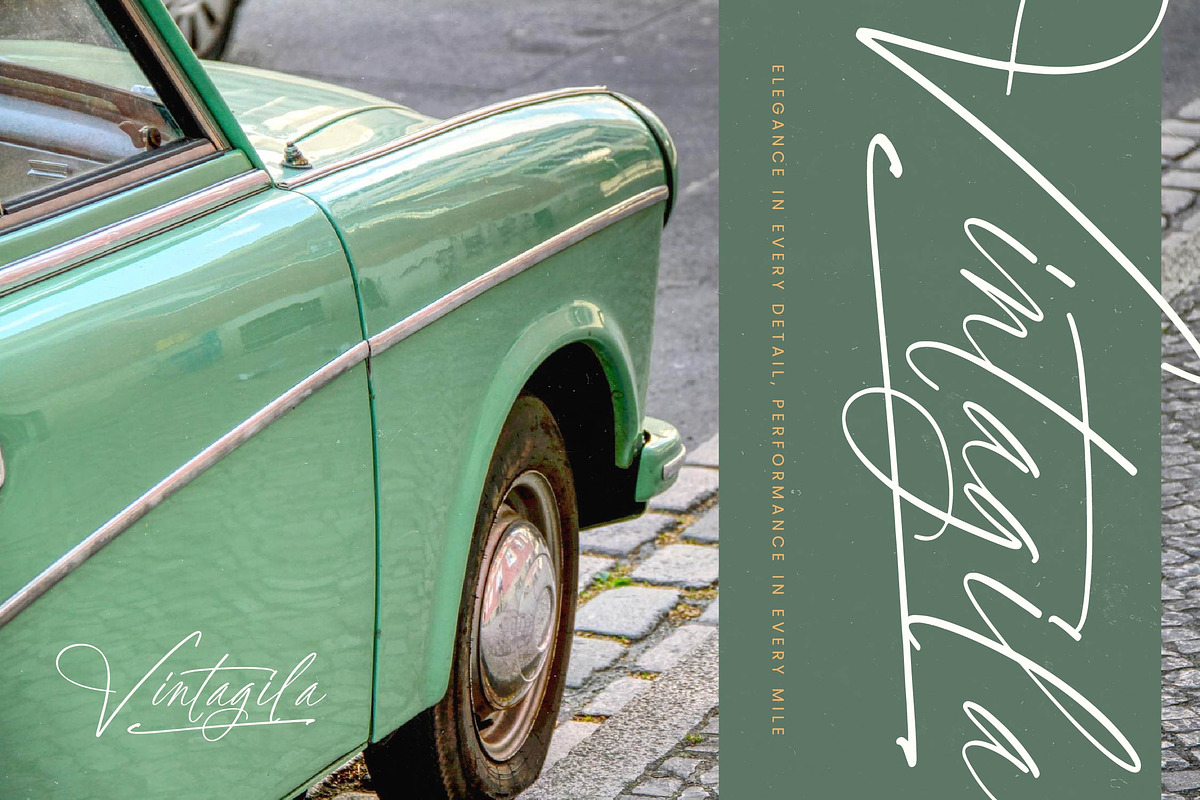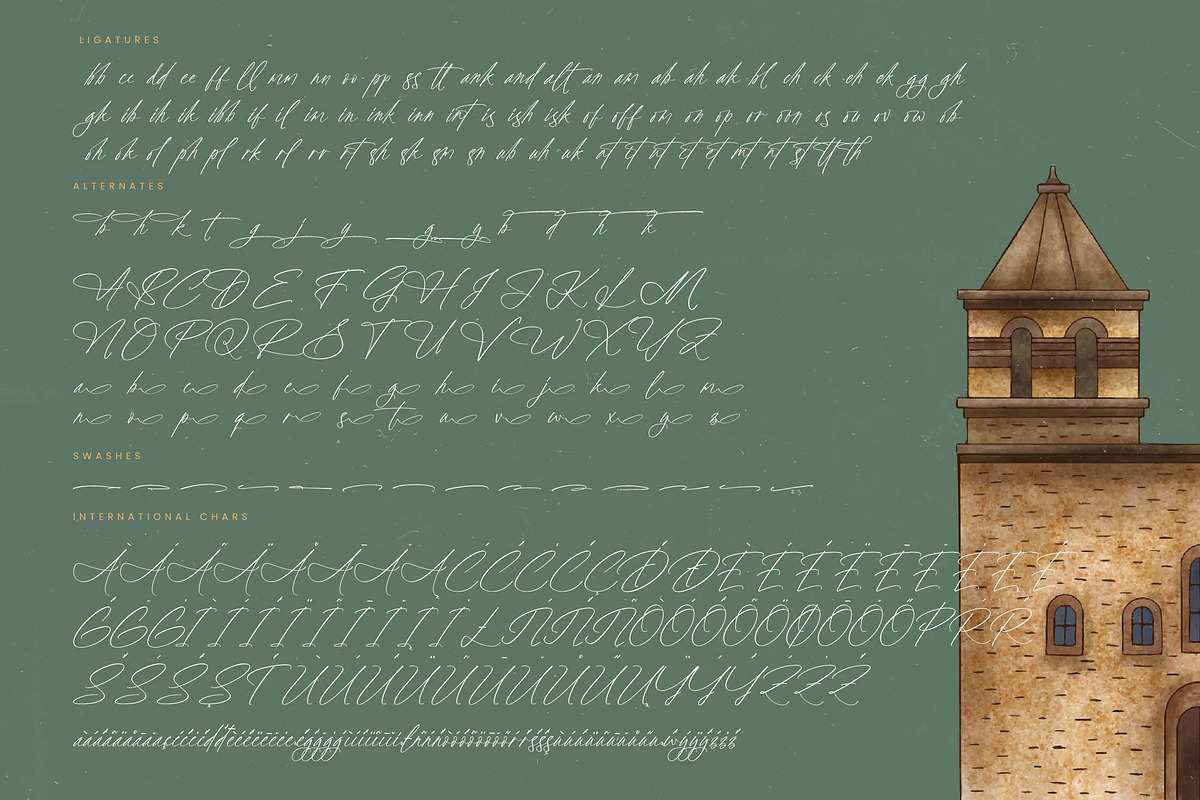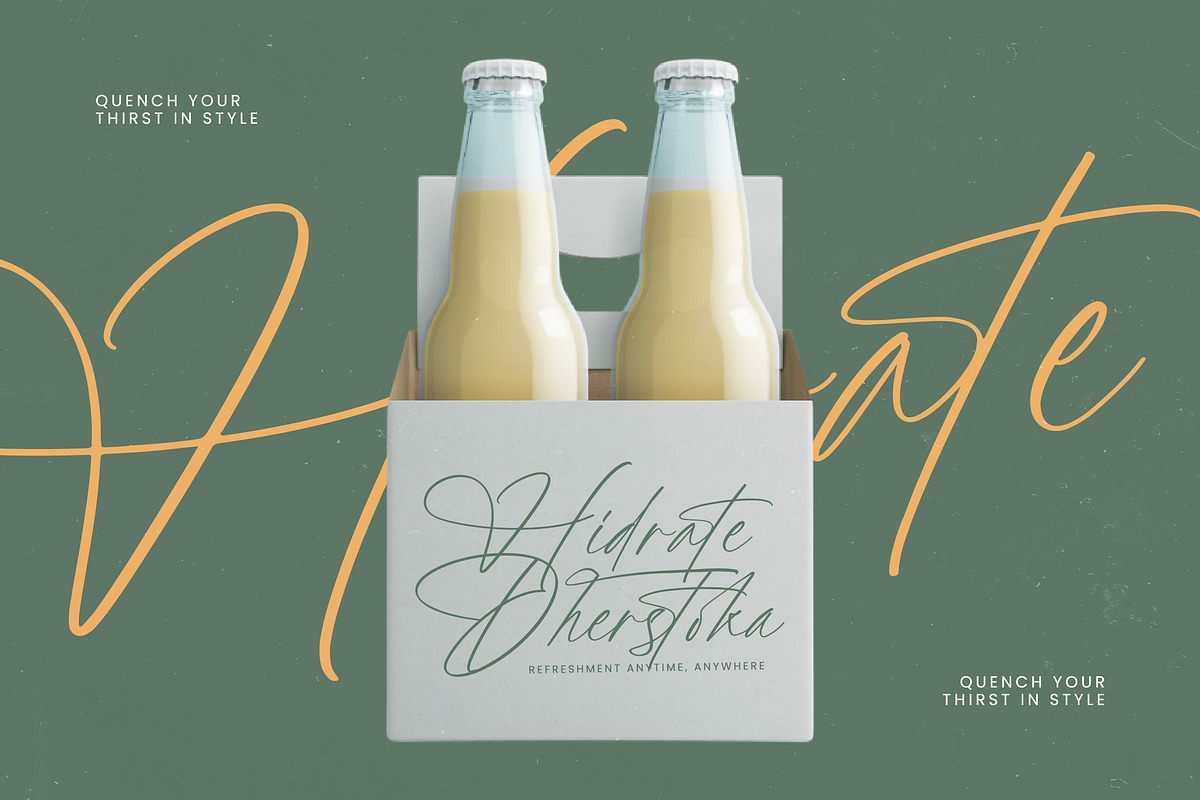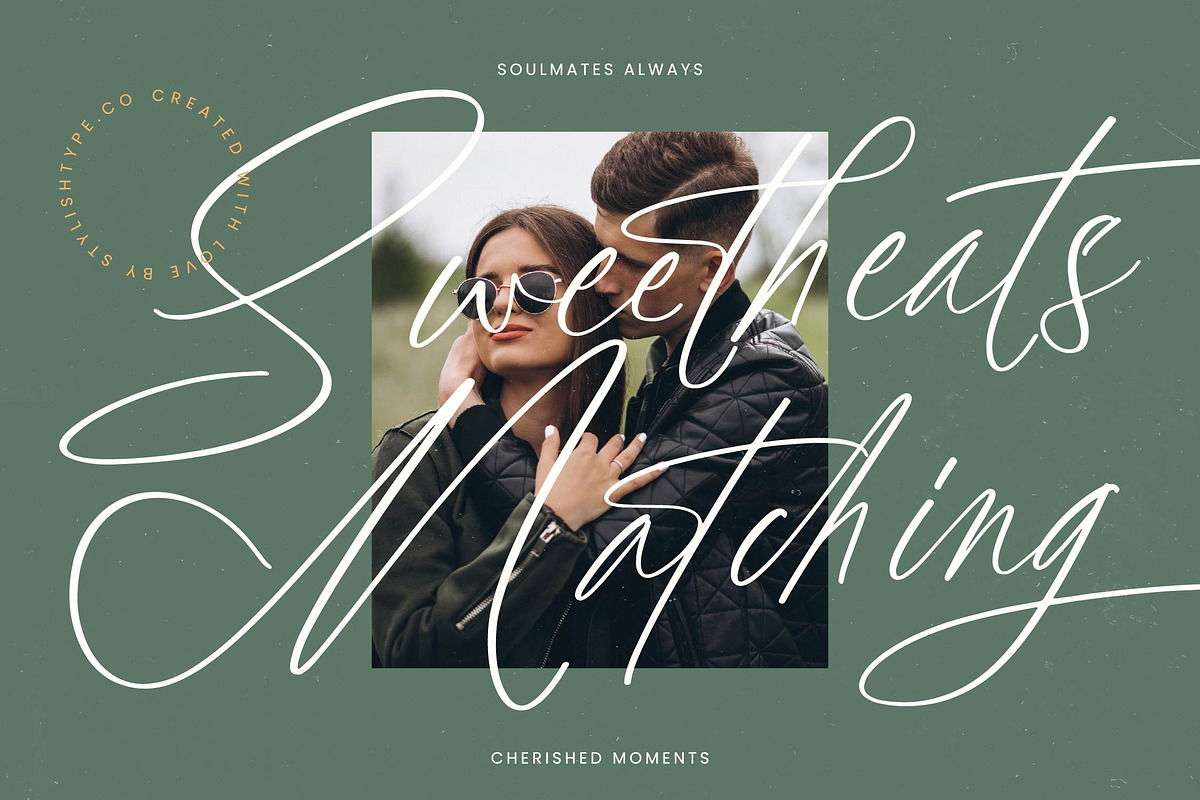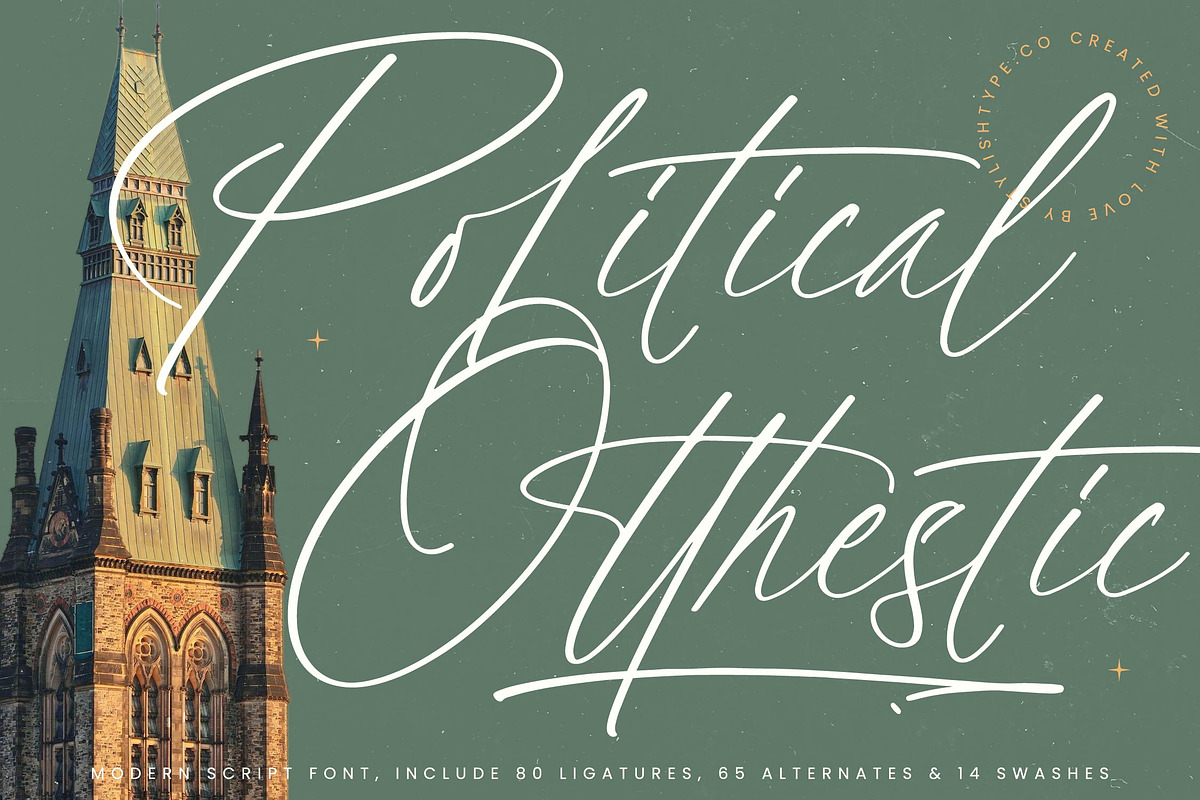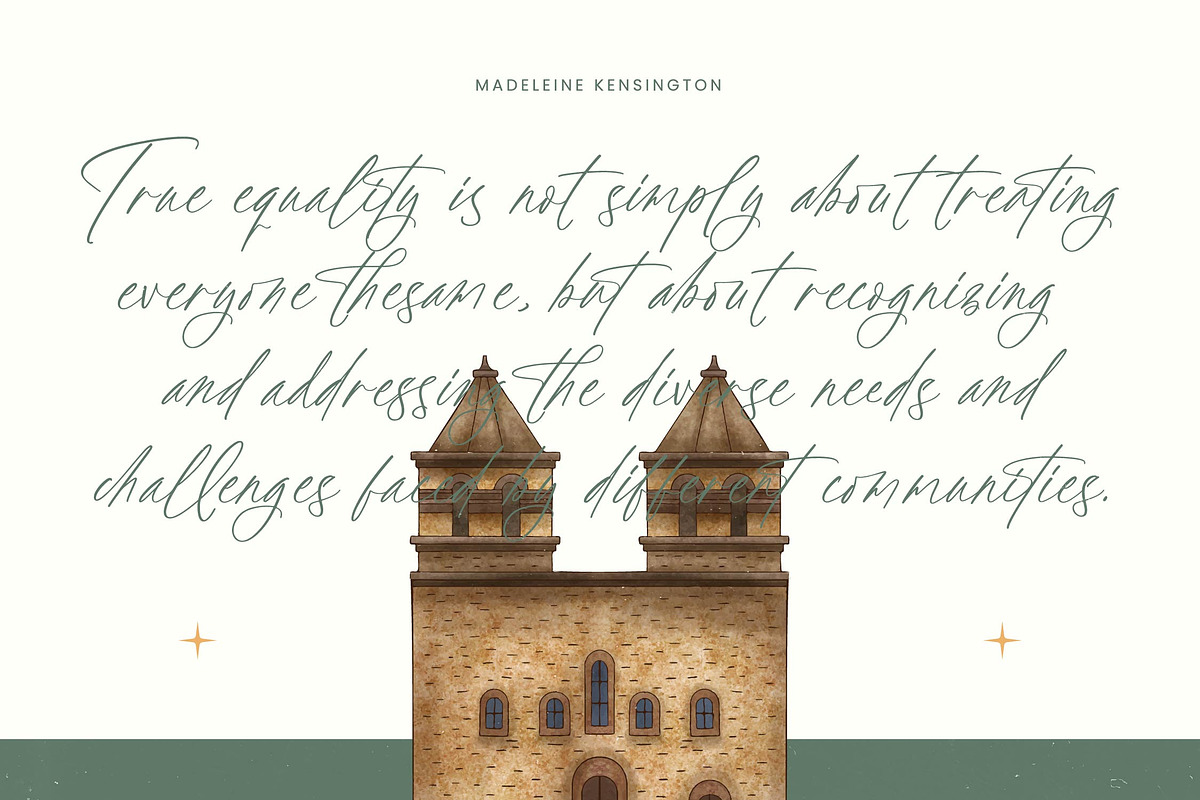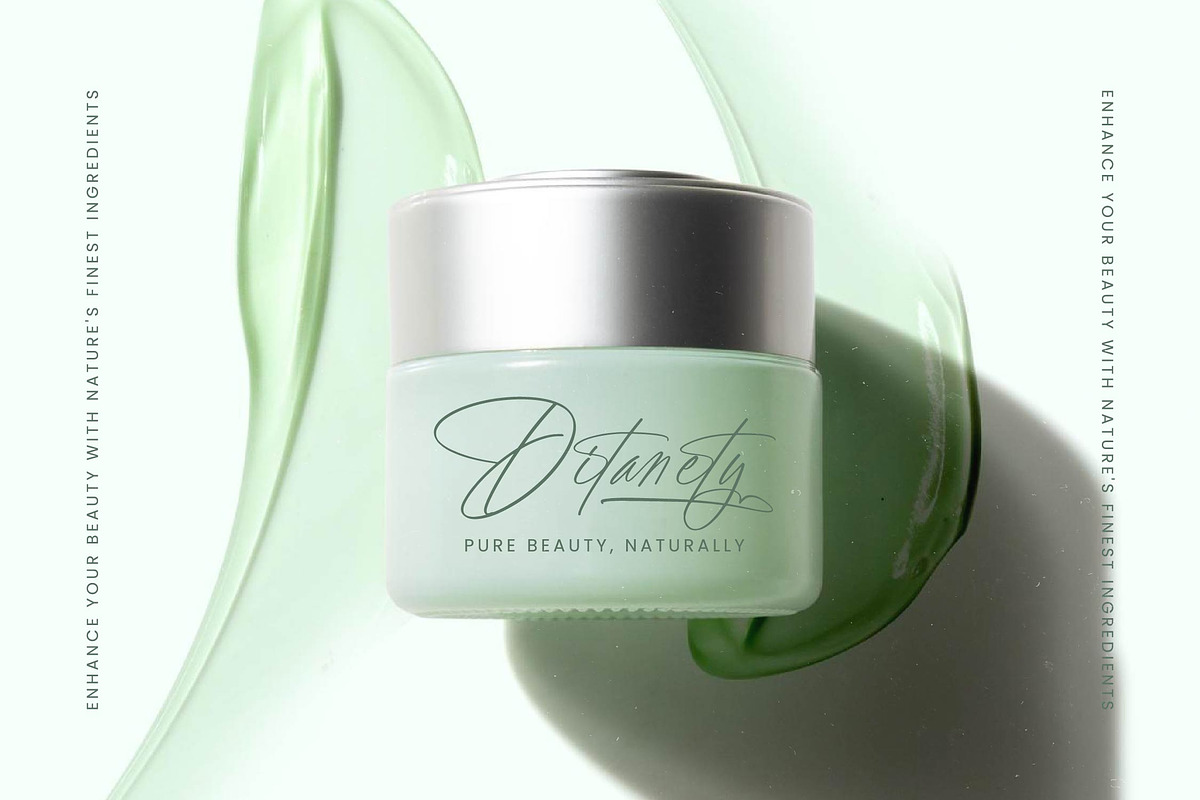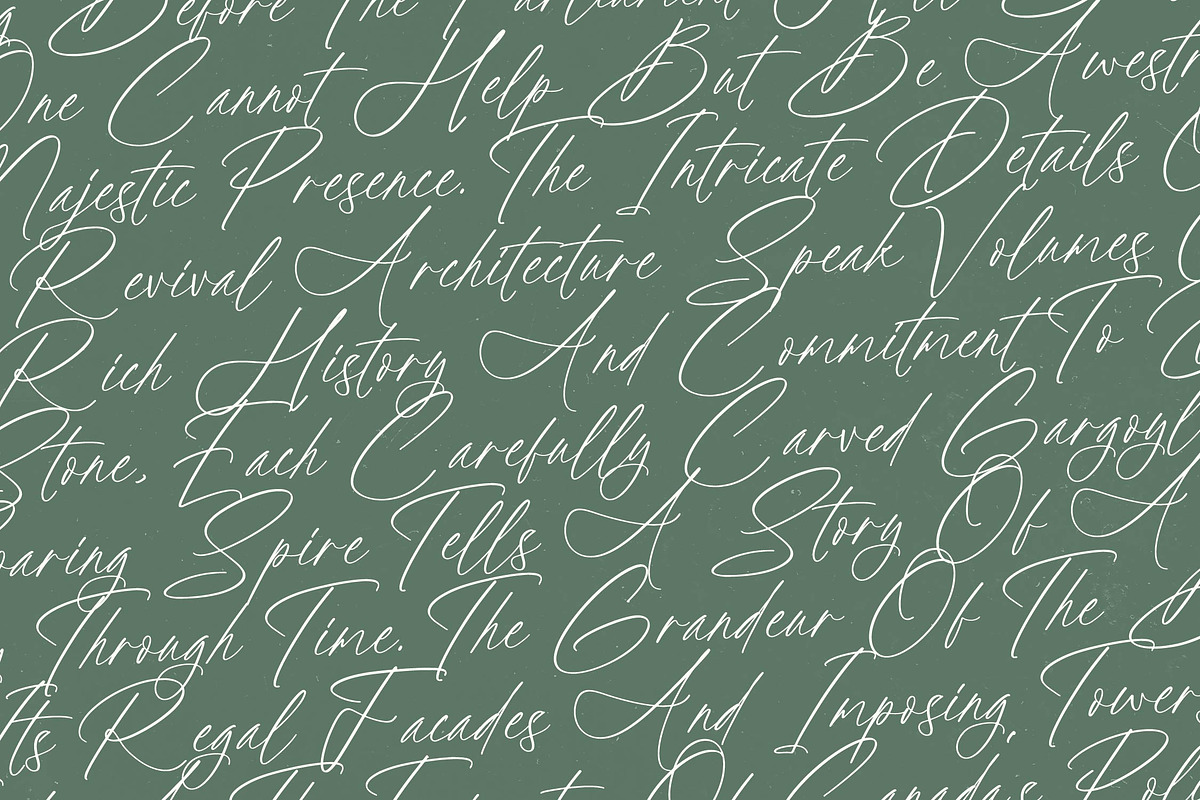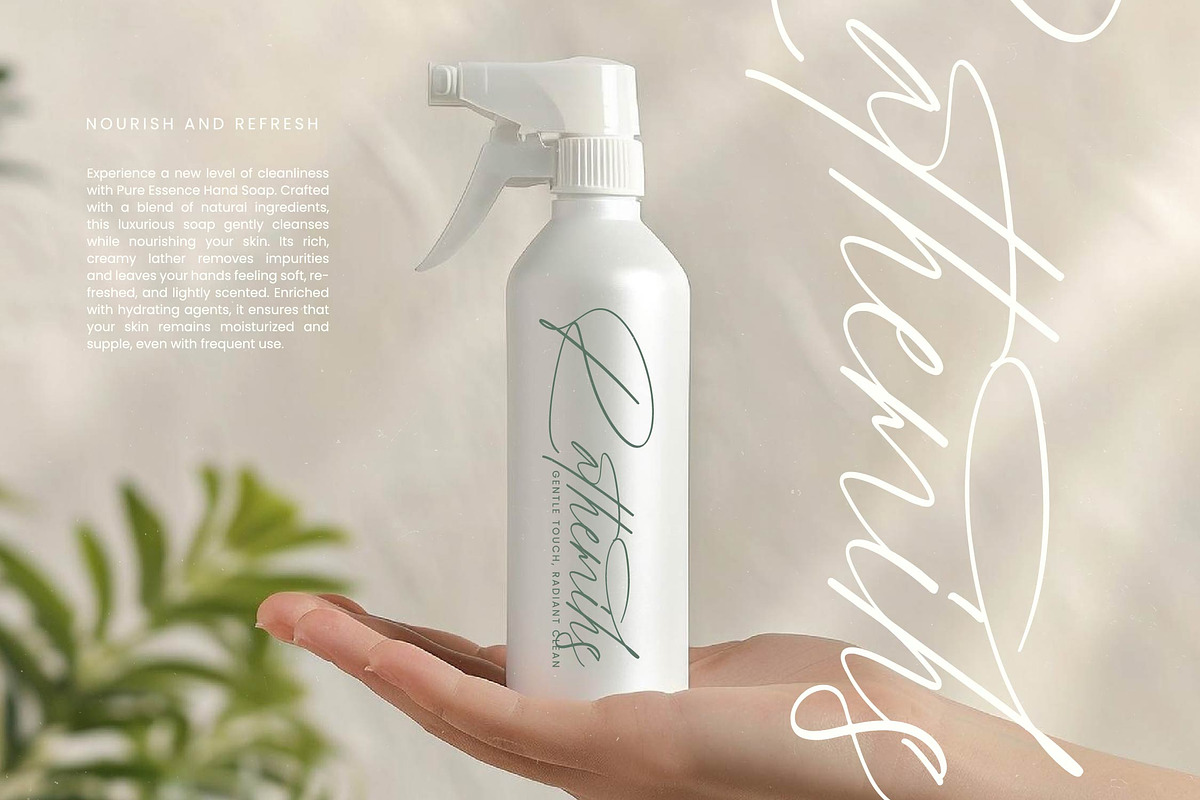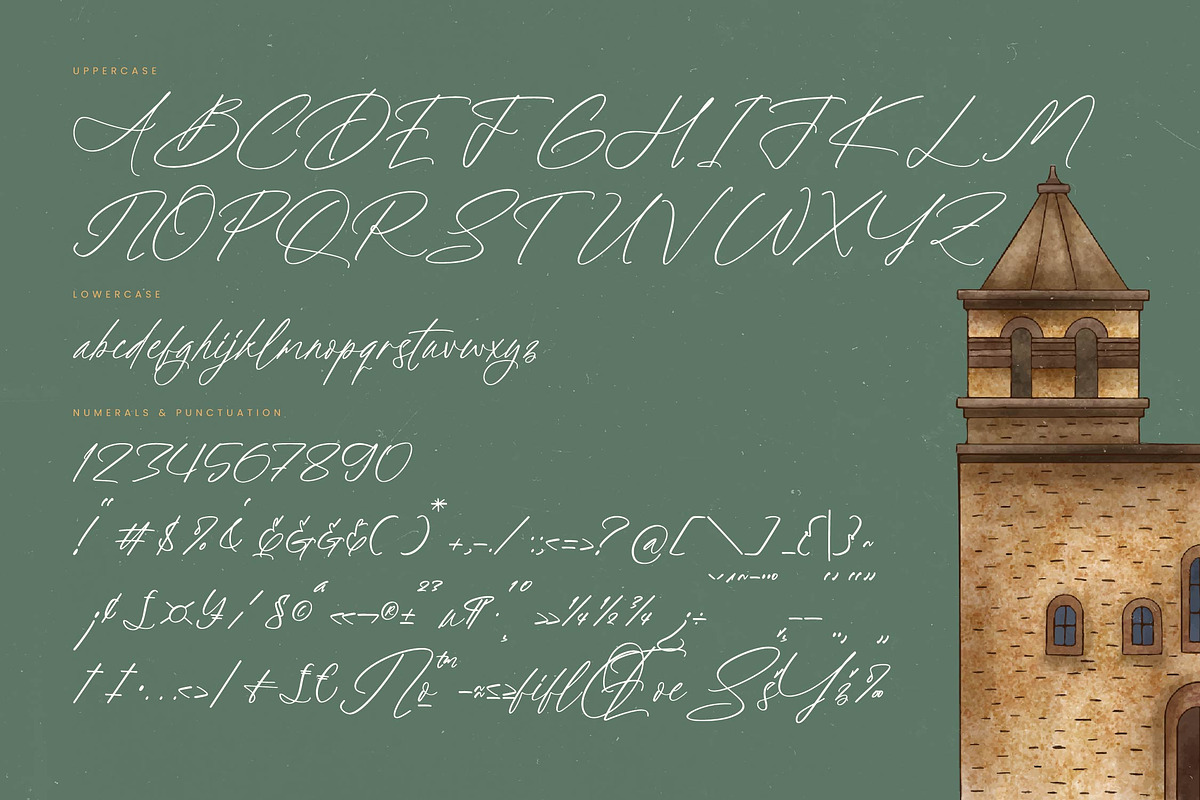
Political Otthestic Modern Script
Political Otthestic - Modern Script Font , Experience the intersection of grace and authority with Political Otthestic, a typeface that redefines contemporary elegance through every stroke. This script is designed for those who demand a sophisticated presence in their visual storytelling and creative endeavors.
Inspired by the timeless architecture of historic parliaments and the fluidity of handwritten diplomatic letters, this font captures a sense of heritage blended with a minimalist, modern aesthetic. It evokes the atmosphere of a crisp morning in a storied city, where every line tells a tale of prestige and purpose.
Crafted for maximum branding impact, this font offers a luxury typography experience that balances delicate hairlines with bold, confident flourishes. While it functions with the soul of a modern serif display, its high-contrast serif DNA ensures it stands out as a premier editorial font for high-end projects.
As the modern serif trend evolves into more fluid and organic forms, this font leads the way by offering character-driven typography that breaks away from the ordinary. It perfectly complements the current wave of editorial display fonts favored by top-tier creative agencies worldwide.
This versatile typeface is the ultimate choice for high-end branding and logo design, providing an instant sense of class to packaging and fashion layouts. Its romantic yet professional rhythm also makes it a dream for wedding invitations and high-concept editorial spreads.
The set is packed with technical excellence, including over 80 ligatures, 65 alternates, and 14 swashes to create truly custom text layouts. It also features full multilingual support with extensive international characters, ensuring your message reaches a global audience with ease.
- Ligature 80 Alternates 65 & 14 Swashes